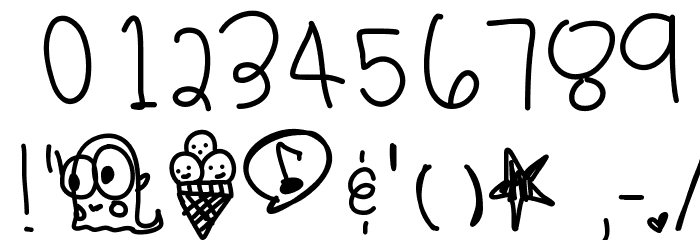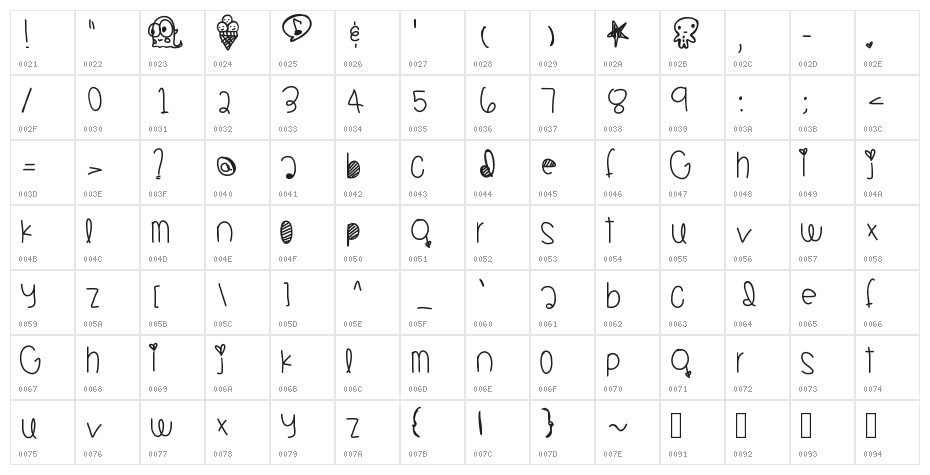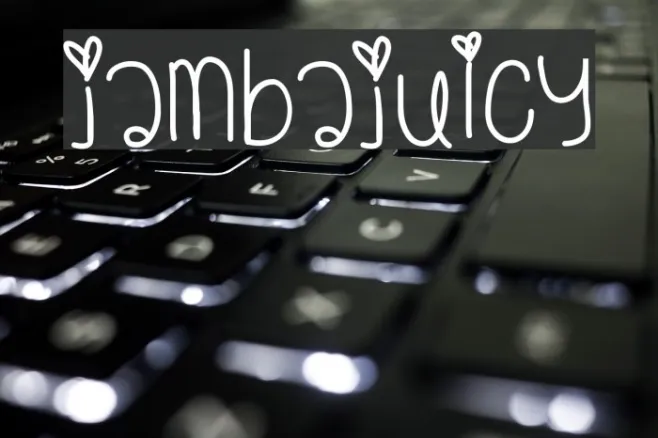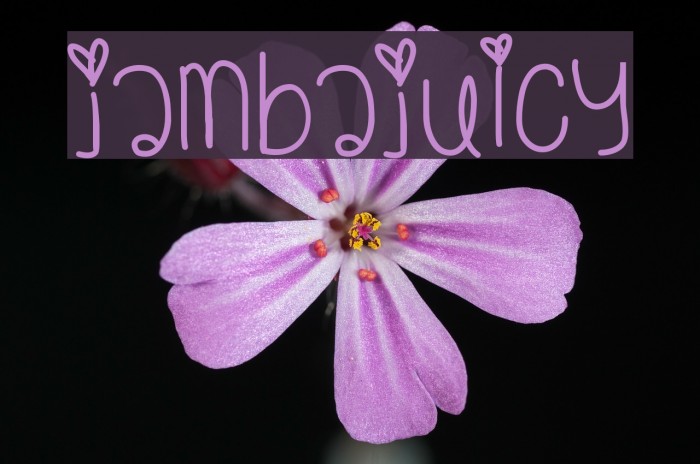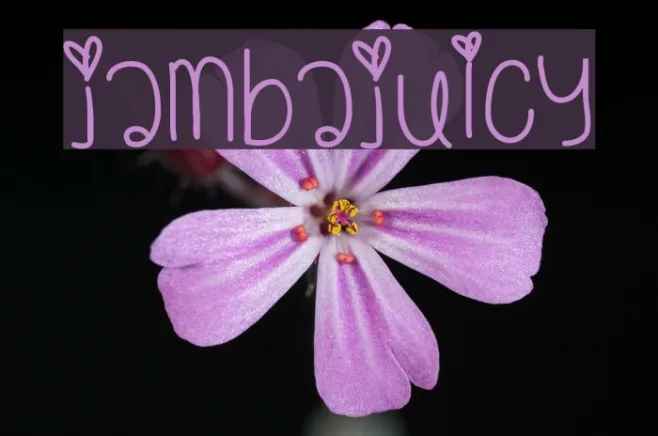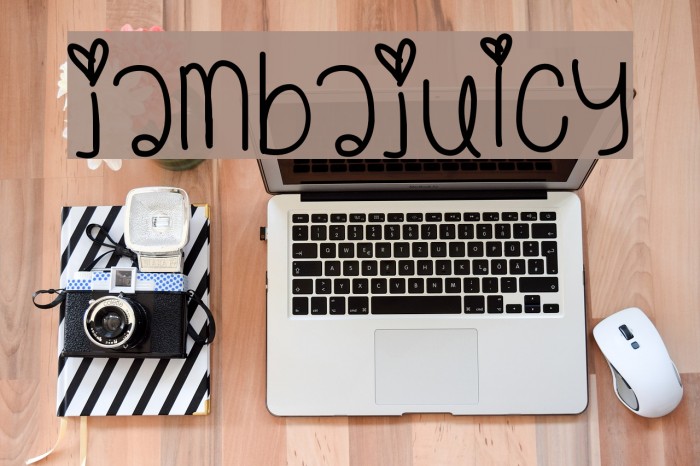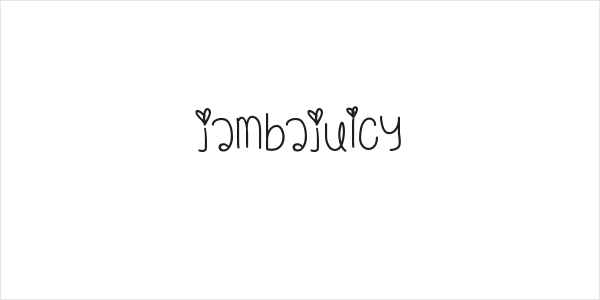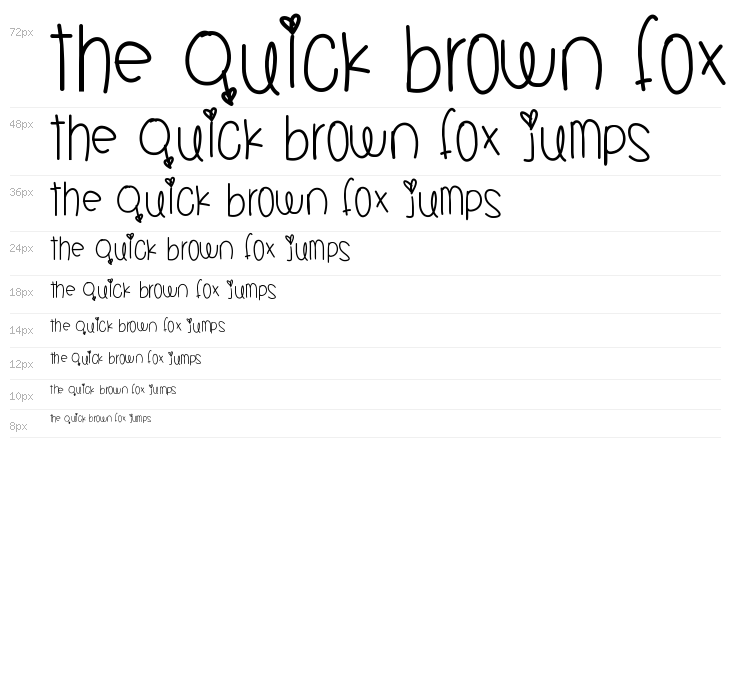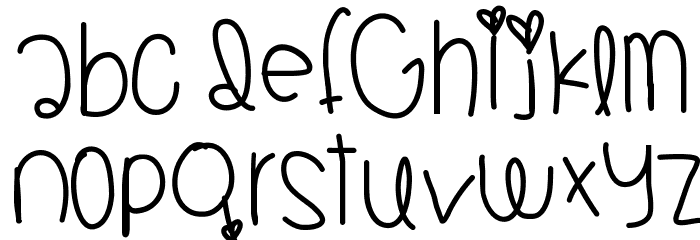
JambaJuicy Font
JambaJuicy Description
This playful and whimsical font features a handwritten style with unique and quirky elements. The letters are characterized by their rounded shapes and varying line thickness, giving them a lively and dynamic appearance. Some letters incorporate decorative elements, such as hearts or stripes, adding to the font's charm. The numbers and special characters maintain the same playful aesthetic, with imaginative designs that complement the overall style. This font exudes a sense of fun and creativity, making it ideal for projects that require a lighthearted and engaging touch.